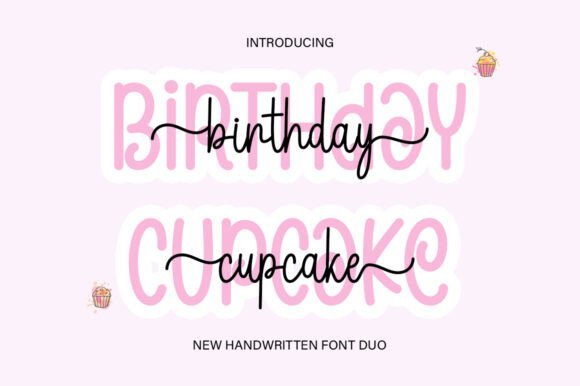
There’s something magical about the moment you’re brainstorming ideas for a special occasion – the possibilities are endless, and the excitement is palpable. You envision the perfect combination of colors, textures, and typography to make your design truly unforgettable. And that’s where the Birthday Cupcake Duo Font comes in – a stylish and delicate duo font that adds a romantic touch to any project.
This sans serif and script font is designed to be versatile, making it perfect for greeting cards, headlines, and more. With its PUA encoding, you’ll have easy access to all the glyphs and ligatures, giving you the freedom to get creative. Whether you’re a seasoned designer or just starting out, the Birthday Cupcake Duo Font is an invaluable addition to your toolkit – and it’s sure to make your designs stand out in a crowd.
Birthday Cupcake Duo Font Key Features
- Unique Characteristics: Unique cupcake-inspired design elements, such as cupcake wrappers, candles, and sprinkles, to add a celebratory touch to your designs
Birthday Cupcake Duo Font Review
Overall, I’d say the Birthday Cupcake Duo Font is a cute and playful addition to any design project. ✨ It’s perfect for baking-related themes, kids’ party invitations, or even as a fun accent in a food blog. The font is a pair of matching uppercase and lowercase characters, making it easy to use in text-based designs.
- Highly legible in most font sizes, making it perfect for digital and print designs.
- The font’s rounded edges give it a friendly and approachable feel, ideal for family-friendly brands.
- The uppercase and lowercase pair makes it easy to create a cohesive look.
However, I do see some limitations:
- Limited character set, which may not be suitable for longer blocks of text.
- No bold or italic versions, which can make it difficult to add emphasis to certain words.
- The font’s design may not be suitable for more formal or professional designs.
Overall, I’d give the Birthday Cupcake Duo Font 3.5 out of 5 stars. While it’s a fun and playful font, its limitations may make it less suitable for more complex designs. Still, it’s a great choice for simple text-based designs and baking-themed projects.
The Birthday Cupcake Duo Font is perfect for:
– Birthday party invitations and decorations
– Cupcake and dessert-themed social media posts
– Food blogs and recipe websites
– Any occasion where a playful, whimsical font is desired